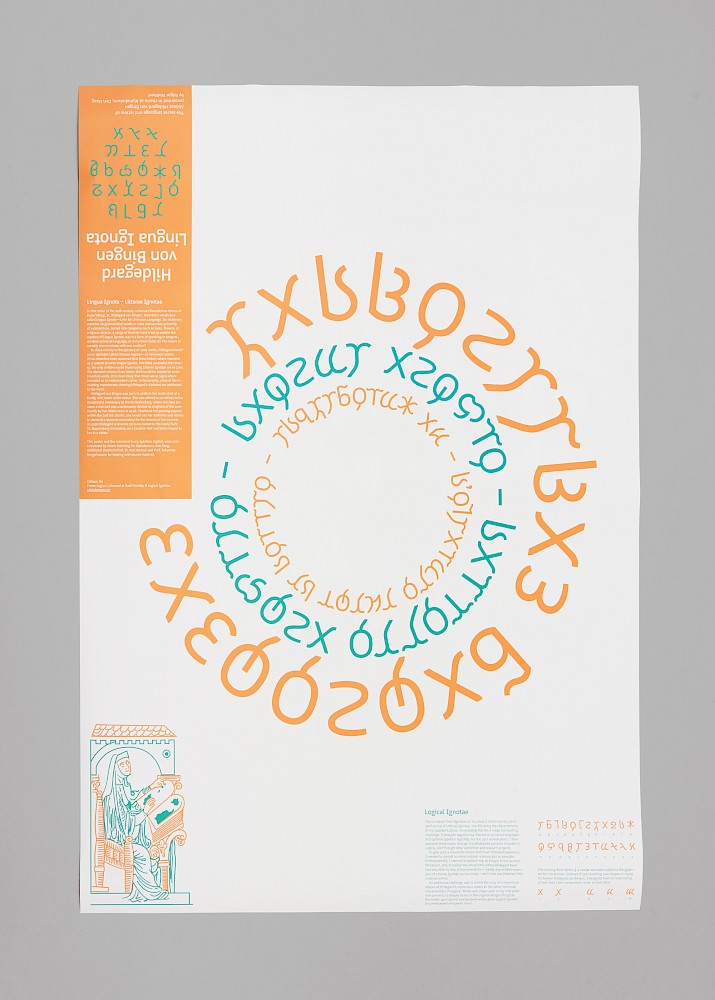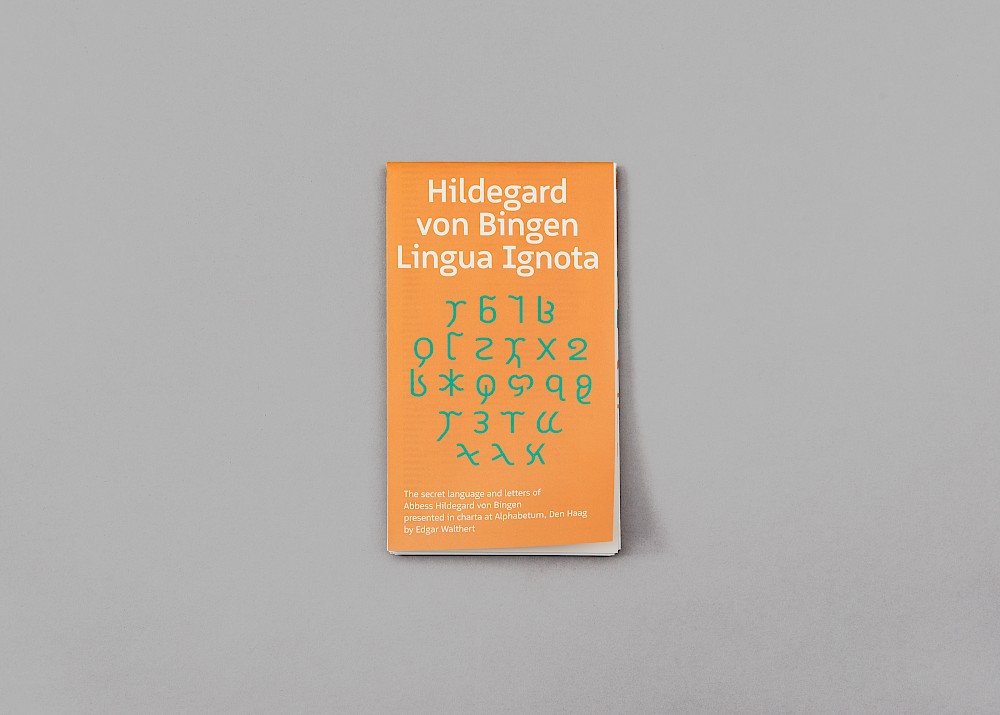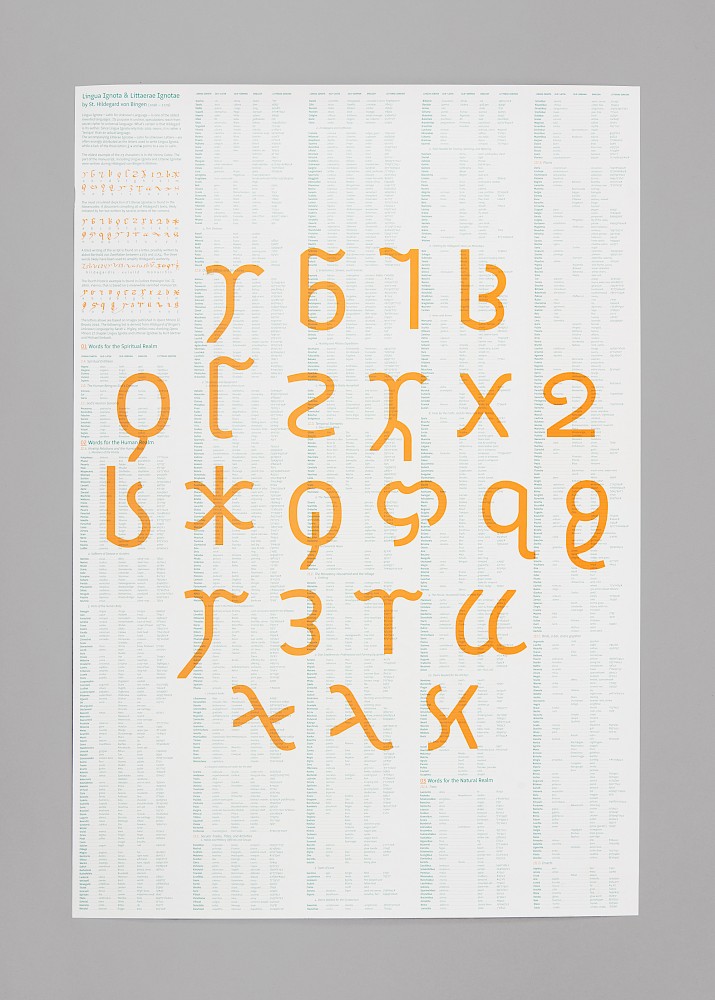
In the 12th century, a German Benedictine abbess of Rupertsberg, St. Hildegard von Bingen, invented a vocabulary called Lingua Ignota translated from Latin as 'unknown language'. One of the earliest invented languages, Lingua Ignota’s purpose was unclear, but speculations include a secret cipher and a universal language. Whereas the purpose of the invented language remains unclear, type- and graphic designer Edgar Walthert created a contemporary revival of Lingua Ignota: reinventing the secret cipher in a sans-serif typeface.